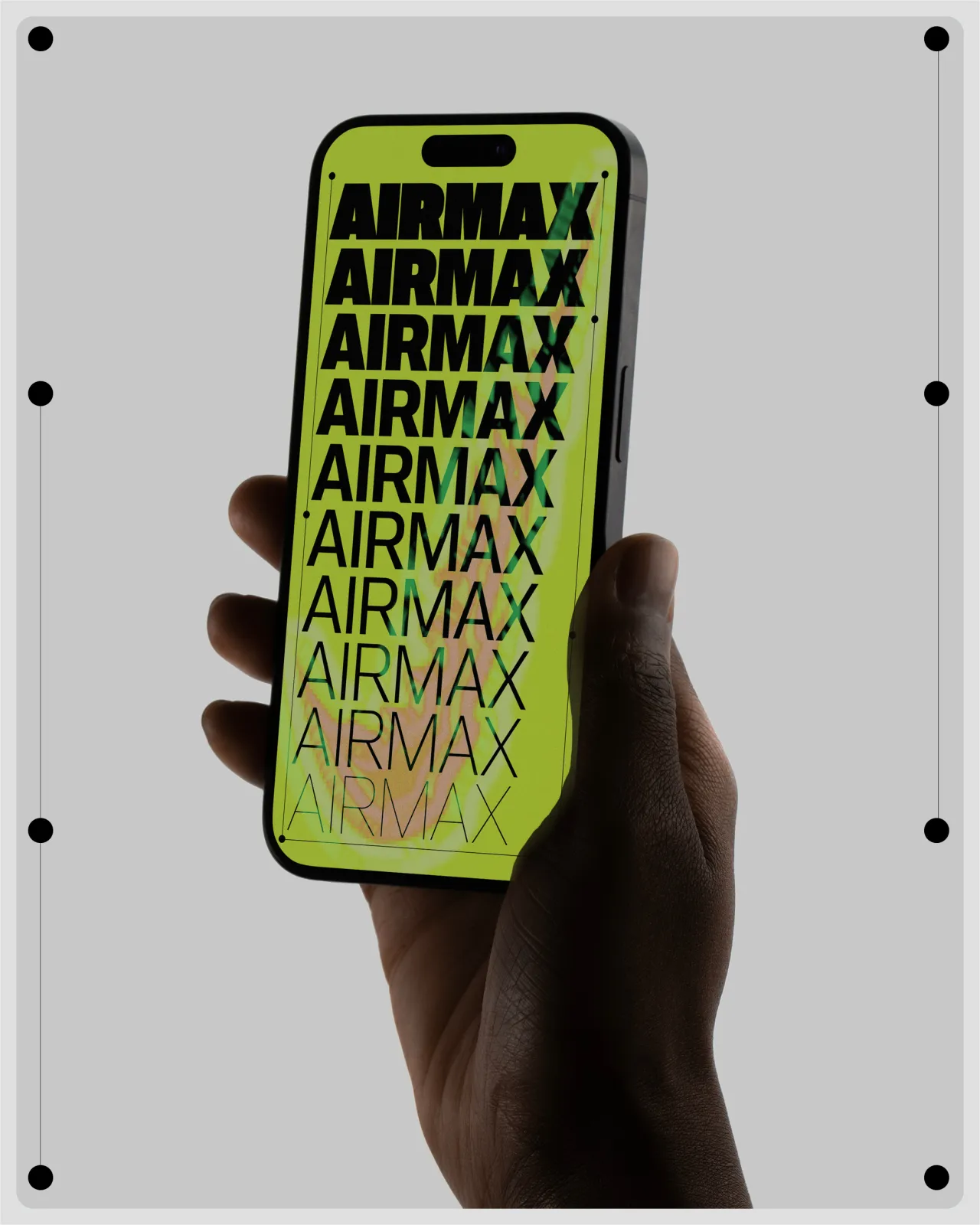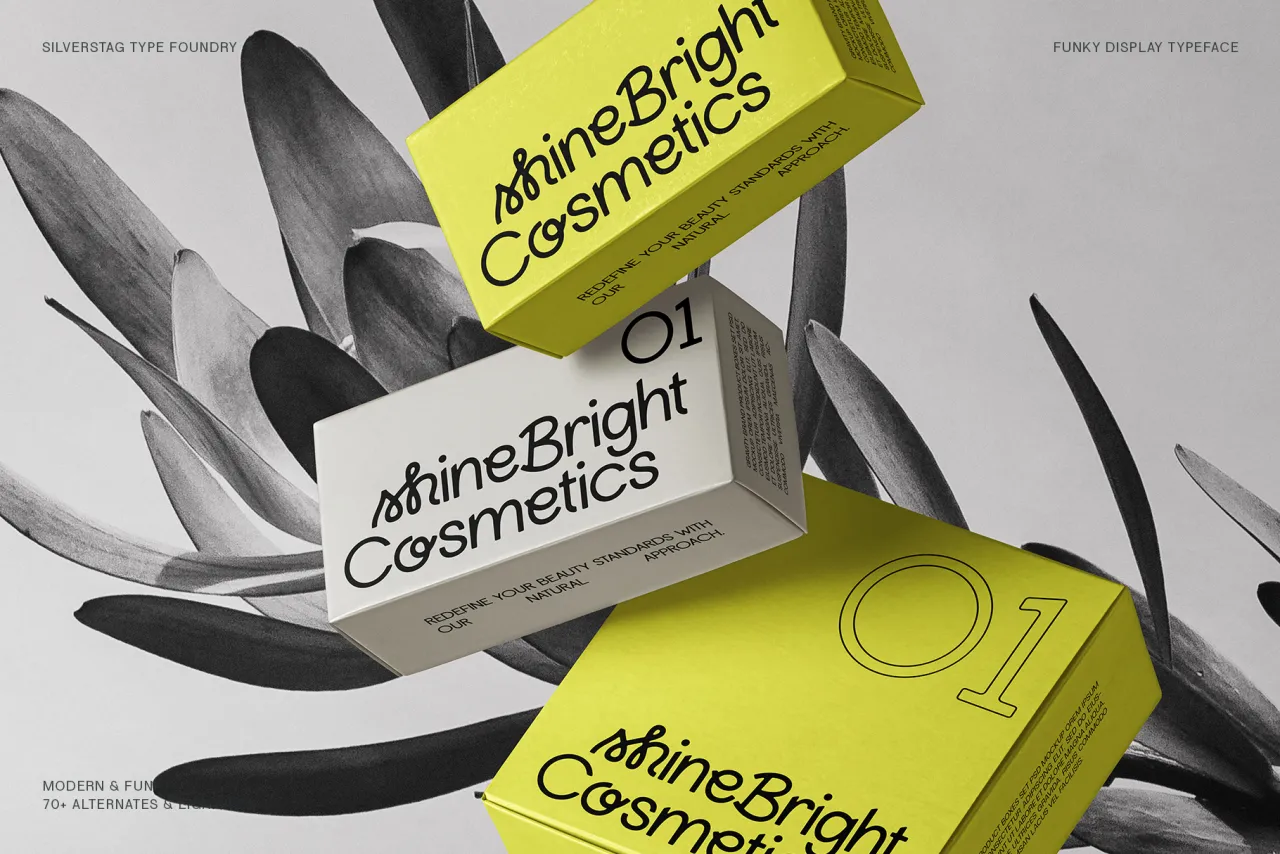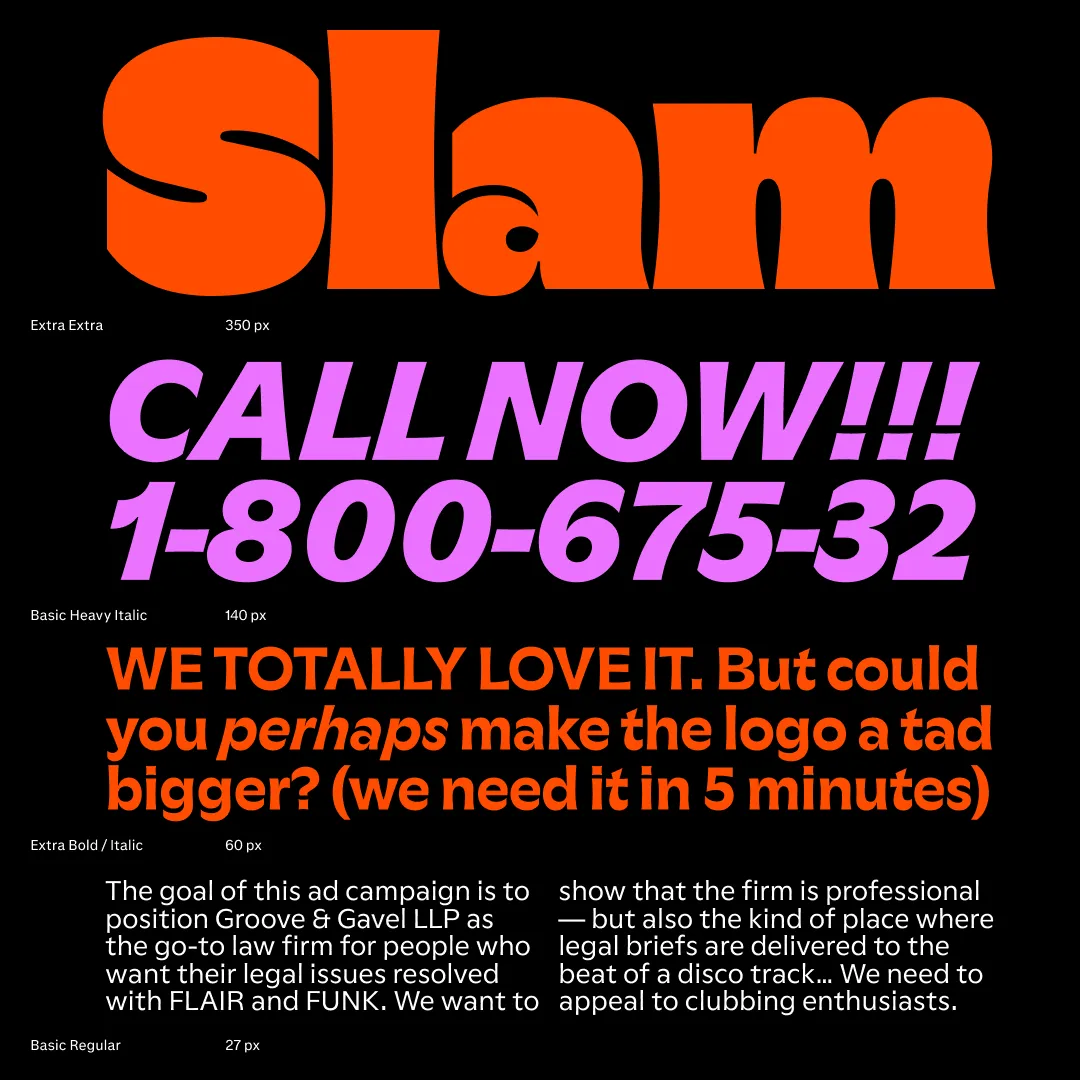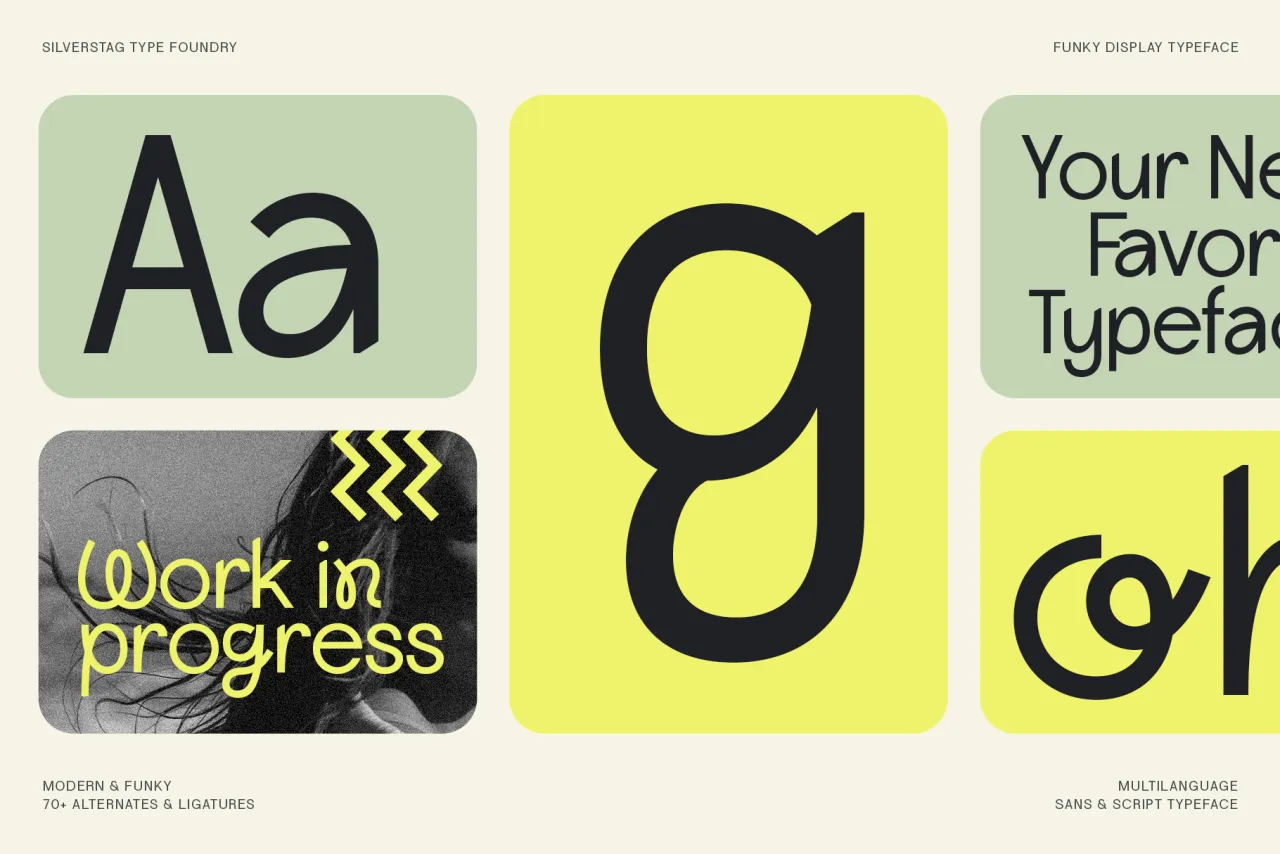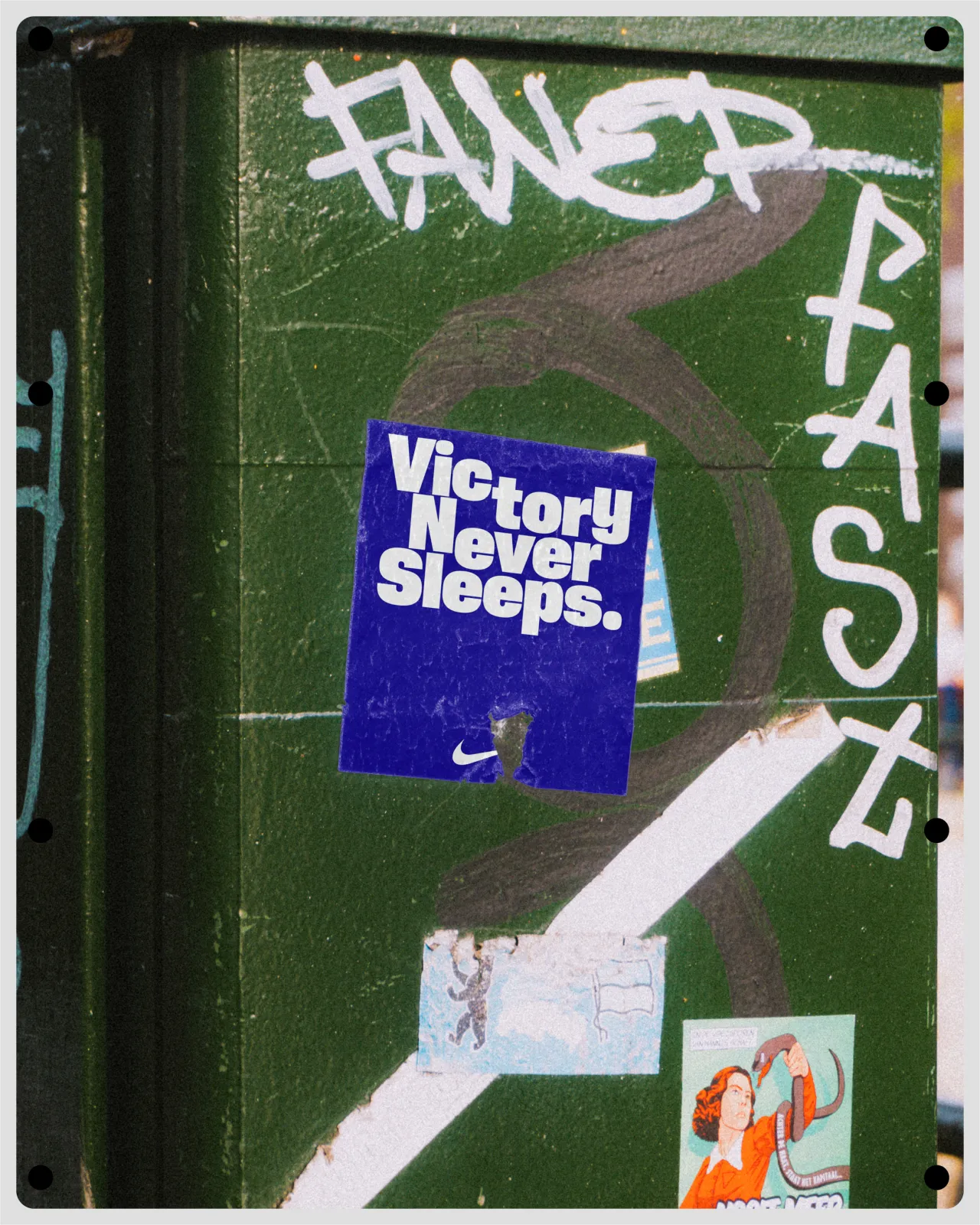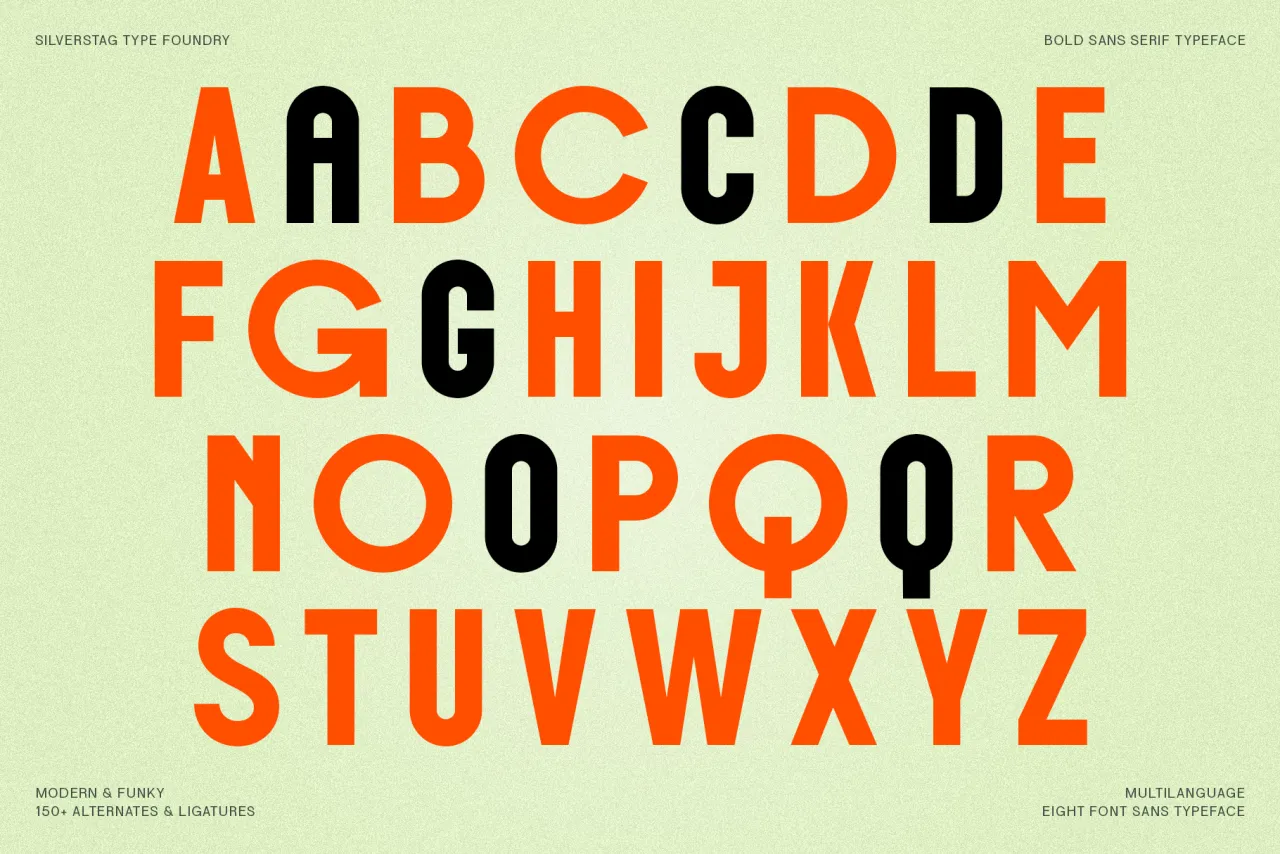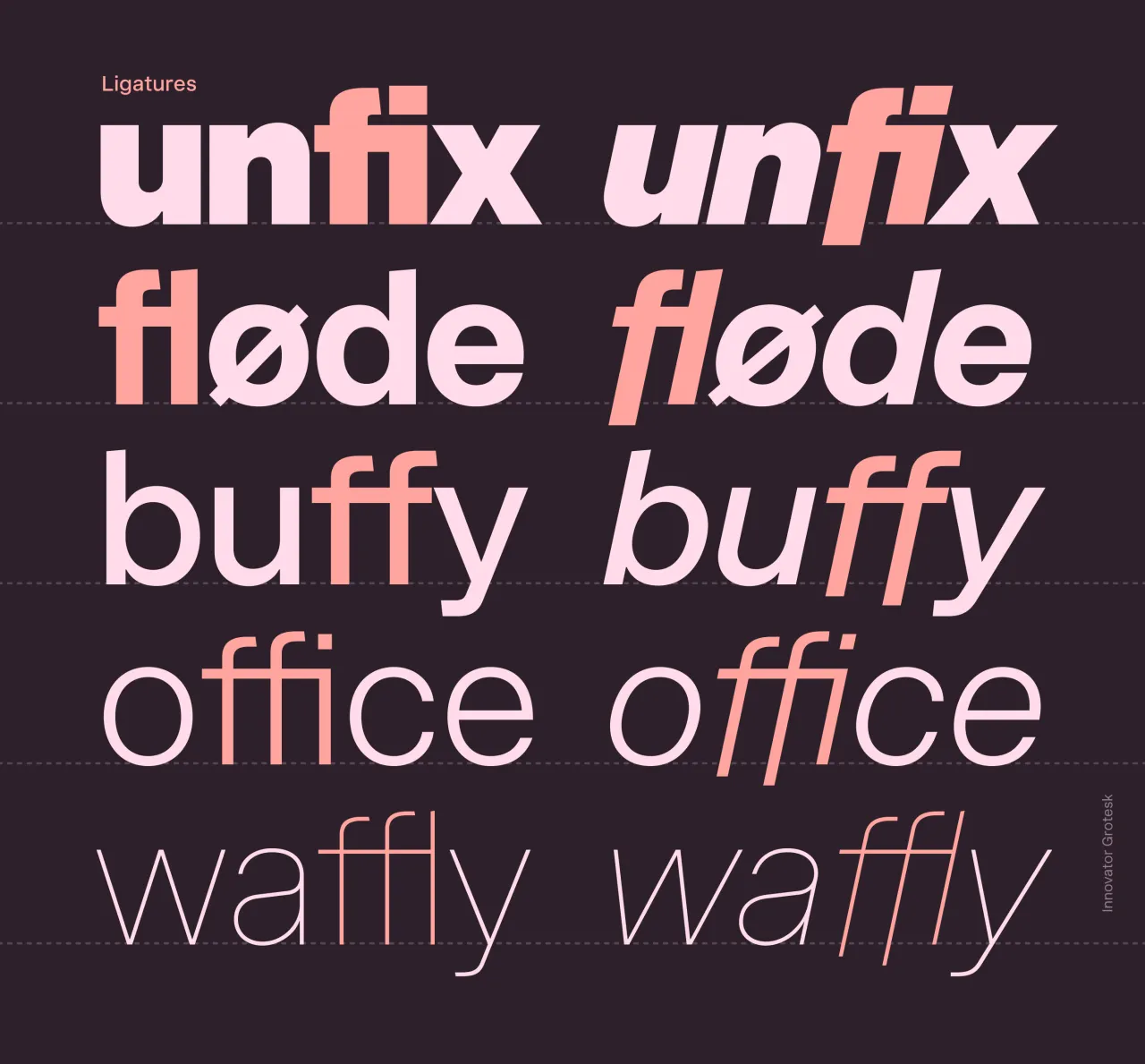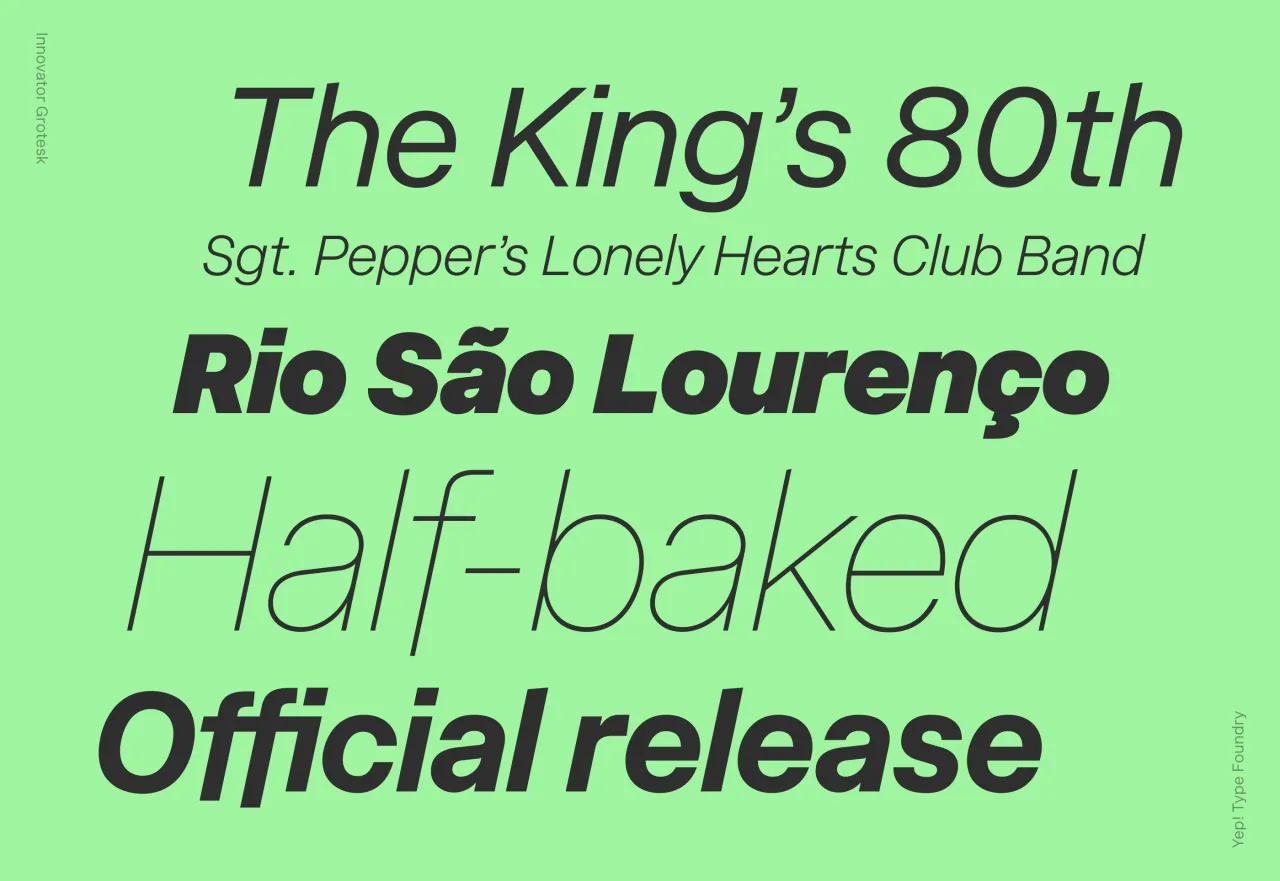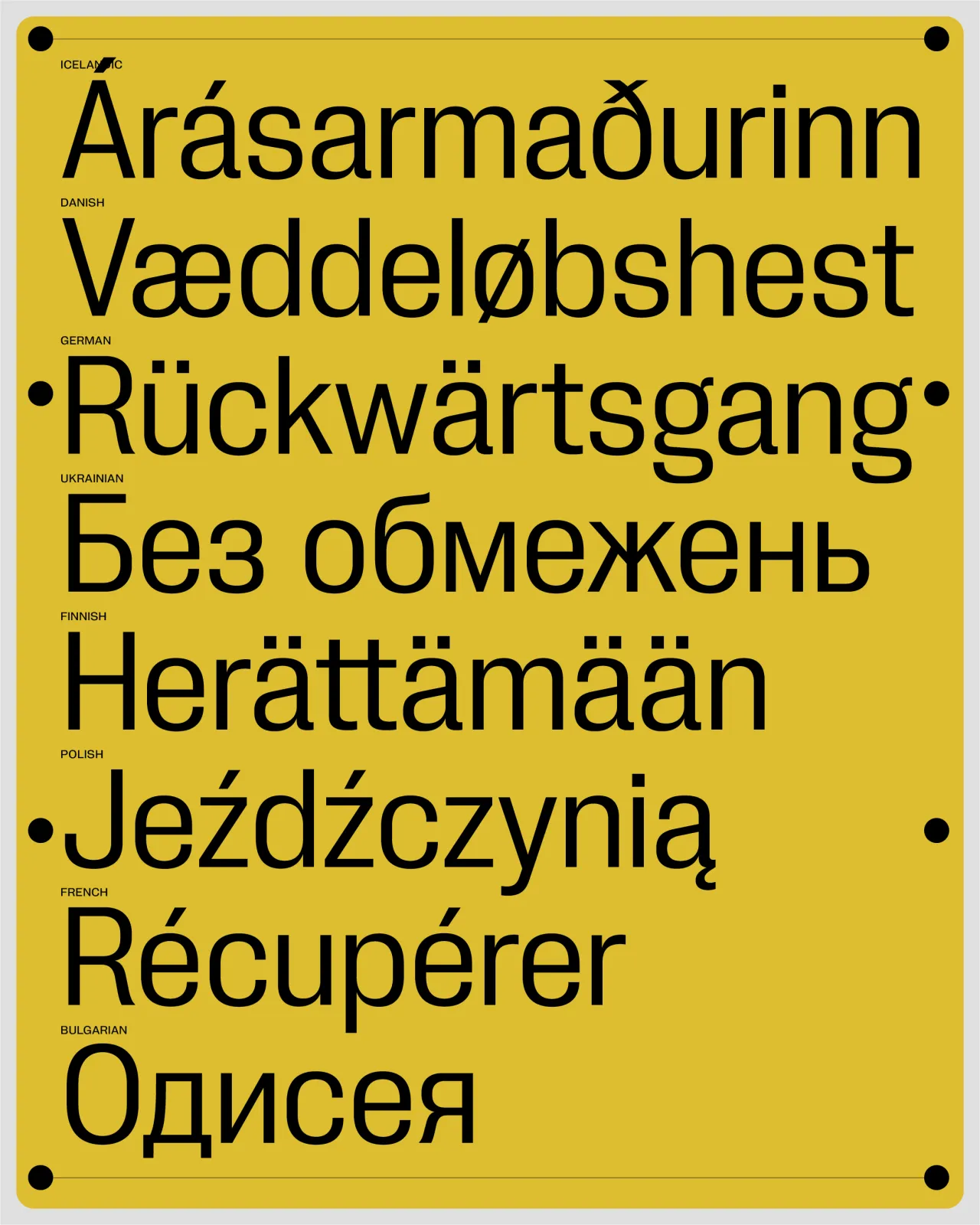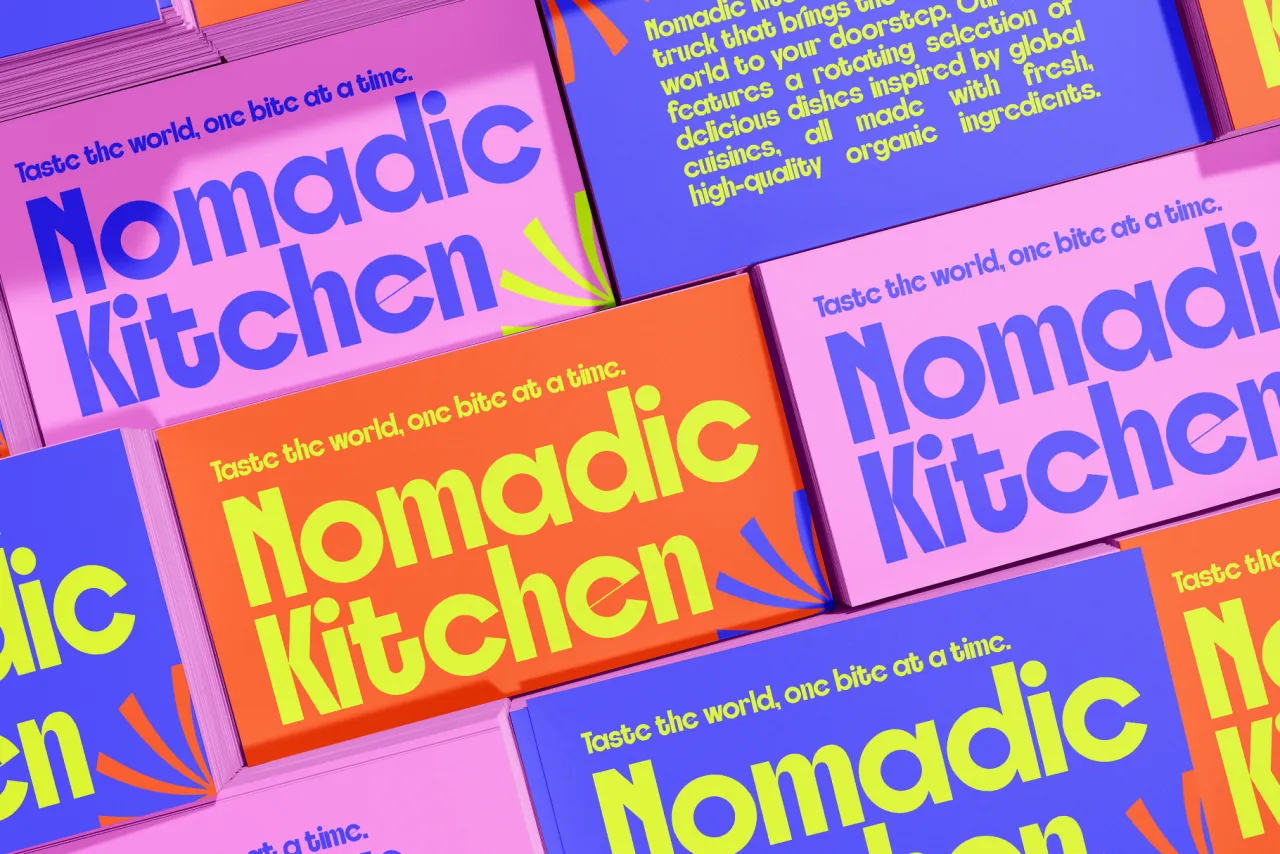
The best new typefaces for November from leading foundries and designers
These fresh releases from independent foundries bring warmth and character to the season.
Rockfall by SilverStag
As autumn deepens and the design world turns towards year-end projects, November's typography releases offer a rich harvest of versatile new fonts. From vintage-inspired display faces to a web font with an innovative licensing model, this month's selection of fonts showcases the innovation and craft driving the best independent foundries.
What's particularly striking about November's releases is the balance between utility and character. While some designs lean into specific historical references or cultural moments, they do so without sacrificing contemporary usefulness. This synthesis of inspiration and practicality speaks to the maturing approach of independent foundries, who increasingly understand that even the most expressive typefaces must earn their place in modern designers' toolkits.
1. RT Dromo by RazziaType
RT Dromo began life as a custom typeface for Die Not hat ein Ende (The Swiss Art of Rock), a publication celebrating the visual culture of 1970s and 1980s Swiss music. Designer Mirco Schiavone has transformed this single-weight commission into a comprehensive family of 16 fonts, drawing inspiration from vintage concert tickets while maintaining contemporary utility.
The result is a sturdy grotesque that carries just enough personality to reference its countercultural origins without sacrificing versatility. It comes with four weights plus matching italics and monospace styles.
2. Season by Displaay Type Foundry
A groundbreaking exploration of the space between sans and serif, Season offers designers unprecedented flexibility in a single typeface family. Designed by Martin Vácha, this innovative collection comprises three distinct families – Sans, Mix and Serif – each available in six weights with matching italics.
The variable font format allows subtle control over the serif emergence and contrast, making it particularly valuable for editorial designers who previously needed to juggle multiple typefaces to achieve similar effects. The thoughtful implementation of triangular serifs, which connect sharply rather than smoothly to the stems, brings a fresh perspective to the ever-evolving conversation between sans and serif designs.
3. PP Neue Corp by Pangram Pangram
Positioning itself as the ultimate "Do-It-All" typeface, PP Neue Corp is an ambitious release that marries the eccentricity of old wood type with neo-grotesque precision. The extensive family features 80 styles across 10 weights and 8 widths, with two variable axes for maximum flexibility.
What sets it apart is its thoughtful implementation of stylistic sets, allowing designers to shift between geometric neutrality and more characterful grotesque details through the addition of spurs. This Swiss-army-knife approach to type design makes it particularly valuable for branding projects that require both versatility and distinctive personality.
4. Innovator Grotesk by Yep! Type Foundry
Roman Shamin's debut release through Yep! Type Foundry is notable not just for its design but for its revolutionary licensing model. This neo-grotesque, with 18 styles across nine weights, eliminates traditional restrictions on device installs and web page views. This could help prevent accidental EULA violations, such as when a company's website traffic suddenly spikes and exceeds the limits of a typical web font license.
Beyond the business innovation, the typeface itself is a thoughtfully crafted workhorse with a relatively tall x-height and carefully optimised vertical metrics for UI design. The recent update adds three stylistic sets and 15 character alternates, enhancing its adaptability across different contexts.
5. Rockfall by SilverStag Type Foundry
Rockfall captures the bold spirit of 1970s rock culture in a contemporary package. This display typeface family includes eight versions – Regular, Round, Regular Outlined and Round Outlined – each with matching italics. With support for over 90 languages and 150 alternate letters and ligatures, it offers substantial creative flexibility while maintaining its distinctive character.
While obviously useful for music-related projects, Rockfall's robust construction and extensive character set make it viable for broader applications in branding and editorial design where impact is paramount.
6. Lightshift by SilverStag Type Foundry
Another SilverStag release, Lightshift takes a more playful approach to display typography, combining sans-serif fundamentals with script-inspired flourishes across four distinct styles: Regular, Round, Outline and Round Outline.
The extensive collection of alternates and ligatures (over 70) allows for creative typesetting while maintaining support for more than 90 languages. Its blend of modern and retro aesthetics makes it particularly suitable for projects that need to balance contemporary design with approachable warmth.
7. Kristolit by Sasha Denisova
Belgrade-based art director Sasha Denisova brings a technological edge to the Scotch Roman genre with Kristolit. This variable typeface family seamlessly blends classical proportions with contemporary geometric precision, offering both regular and italic styles. I
Its sharp geometry and strong stroke contrast create a distinctive voice in the serif landscape while maintaining enough restraint for editorial applications. The addition of Cyrillic support for Serbian, Russian, Ukrainian, and Belarusian makes it valuable for international projects, while stylistic alternates allow fine-tuning between traditional and modern appearances.
8. GT Flaire by Grilli Type
Designed by Reto Moser, GT Flaire demonstrates the continuing vitality of historically informed type design. By translating calligraphic pen strokes into digital form, Moser has created a typeface family that successfully balances business-like reliability with expressive detail.
The collection comprises seven weights with matching italics across both Basic and Extra styles, totalling 28 styles. The variable font implementation, featuring three axes, provides precise control over the typeface's personality, allowing designers to dial in exactly the right amount of flair for each application.